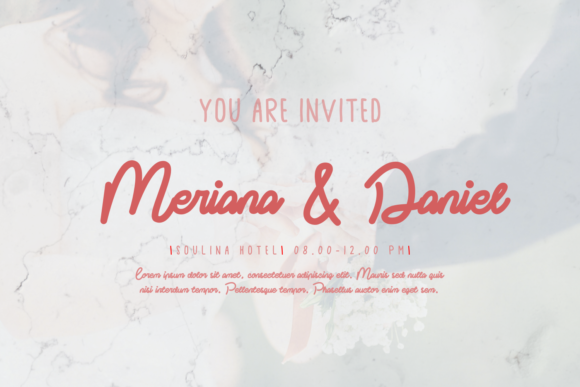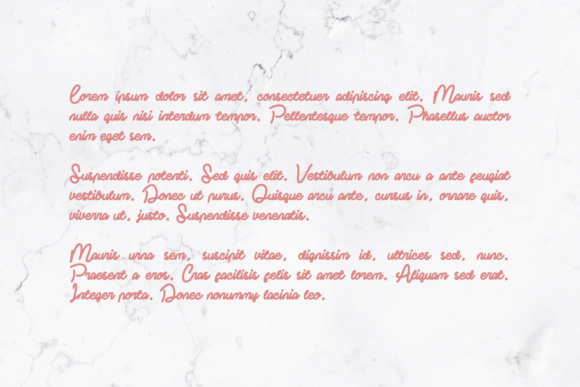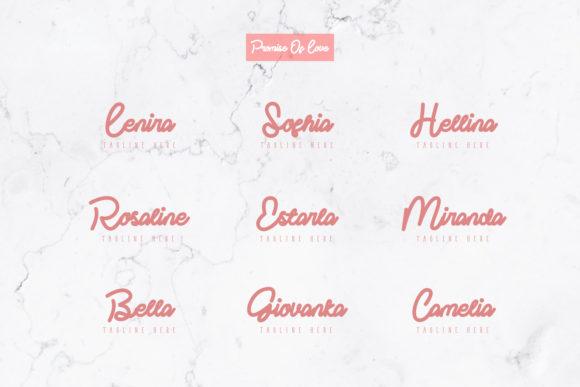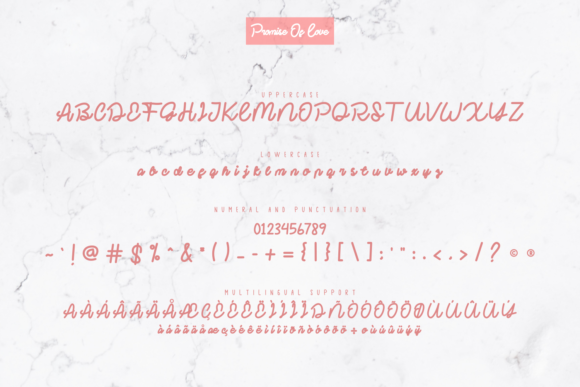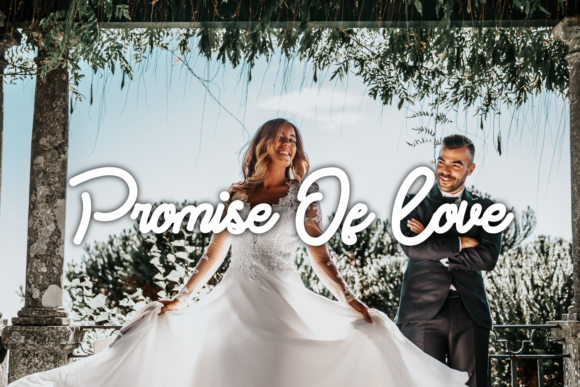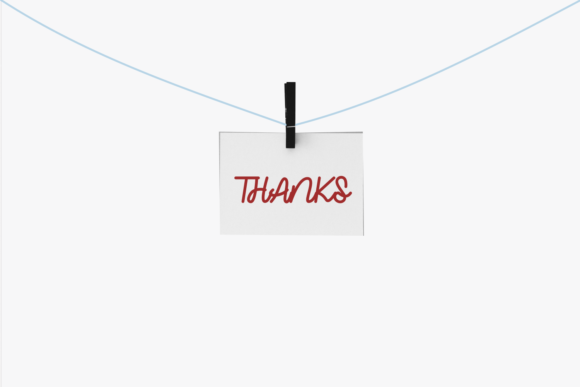
Introduction to Promise of Love Font
As you sit down to plan the perfect wedding invitation or design a heartfelt card, you’re suddenly struck with the desire to make it truly special. The words you write should be a reflection of your love and commitment to each other, and the font you choose should be just as romantic and personal. This is where the Promise of Love Font comes in – a beautiful, brushed handwritten font that’s sure to add a touch of whimsy and joy to your creative project.
For designers, finding the right font can be a challenge. You need something that’s high-quality, yet easy to use; versatile, yet still conveys the emotions you want to express. The Promise of Love Font is a valuable resource for any design project that requires a romantic and personalized touch. Whether you’re working on a wedding invitation, a card, or even a social media post, this font is sure to be a game-changer.
Key Features of Promise of Love Font
- Features a transparent background, allowing for seamless integration into various design elements and backgrounds.
- Designed to be highly legible, with clear and crisp letterforms, making it perfect for use in body text and titles.
- Perfect for romantic and wedding-themed designs, as well as other creative projects that require a touch of elegance and sophistication.
Honest Review: Promise of Love Font
What works well with this font is its high-quality design, perfect for titles, headings, and body text. The elegant script style is a great choice for romantic or inspirational projects, and the font’s versatility allows it to be used in a variety of creative contexts.
Here are some of the font’s key features:
- Beautiful, elegant script style
- Perfect for creative projects, including weddings, love stories, and inspirational quotes
⚠️ One limitation of this font is that it may not be suitable for bold or formal projects, as it has a more romantic and whimsical feel.
Overall, I’m impressed with the Promise of Love Font and would definitely recommend it as a design resource for any creative project.
Using in Creative Projects
To get the most out of the Promise of Love Font, experiment with different font sizes, colors, and combinations. This will help you achieve the desired look for your creative project.
The Promise of Love Font is commonly used in wedding invitations, romantic quotes, and other creative projects that require a touch of love and elegance.